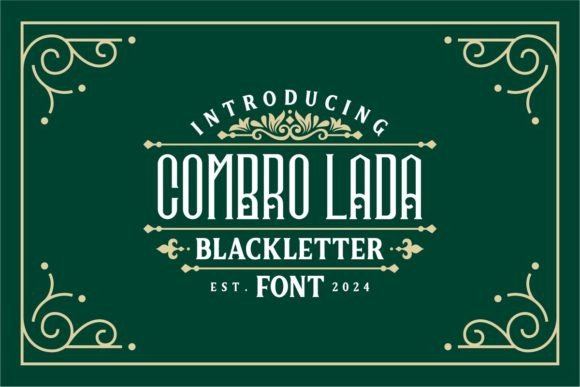
Introducing Combro Lada Font: The Bold Blackletter Typeface for Medieval-Inspired Designs
Are you looking for a font that can add a touch of old-world flair to your designs? Look no further than Combro Lada Font, a bold blackletter typeface that is sure to make a statement. With its strong, sharp lines and medieval vibe, Combro Lada is the perfect choice for designers who want to add a sense of history and sophistication to their work.
What is Combro Lada Font?
Combro Lada Font is a bold blackletter font that is inspired by the traditional typefaces of the Middle Ages. Its strong, sharp lines and dramatic flourishes give it a distinctive look that is sure to turn heads. Whether you’re designing a logo, a poster, or a website, Combro Lada is the perfect choice for adding a touch of medieval flair to your work.
Key Features of Combro Lada Font
So what sets Combro Lada Font apart from other fonts? Here are just a few of its key features:
- Bold and dramatic lines: Combro Lada’s strong, sharp lines give it a bold and dramatic appearance that is sure to make a statement.
- Medieval vibe: The font’s medieval-inspired design gives it a unique and distinctive look that is perfect for adding a touch of old-world flair to your designs.
- Highly legible: Despite its bold and dramatic lines, Combro Lada is highly legible, making it perfect for use in a variety of design applications.
- Versatile: Combro Lada is a versatile font that can be used in a variety of design applications, from logos and posters to websites and more.
Uses for Combro Lada Font
So what can you use Combro Lada Font for? The possibilities are endless! Here are just a few ideas to get you started:
- Logos and branding: Combro Lada’s bold and dramatic lines make it perfect for use in logos and branding materials.
- Posters and flyers: The font’s medieval vibe makes it a great choice for posters and flyers that need to grab attention.
- Websites and blogs: Combro Lada can add a touch of sophistication and elegance to any website or blog.
- Packaging and labels: The font’s bold and dramatic lines make it perfect for use in packaging and labels.
Tips for Using Combro Lada Font
Here are just a few tips for using Combro Lada Font in your designs:
- Use it sparingly: Combro Lada is a bold font, so it’s best to use it sparingly to avoid overwhelming your design.
- Pair it with a serif font: Combro Lada pairs well with serif fonts, which can help to add contrast and visual interest to your design.
- Experiment with different colors: Combro Lada looks great in a variety of colors, so don’t be afraid to experiment and find the perfect hue for your design.
In conclusion, Combro Lada Font is a bold and dramatic blackletter font that is perfect for adding a touch of medieval flair to your designs. With its strong, sharp lines and highly legible design, Combro Lada is a versatile font that can be used in a variety of design applications. Whether you’re designing a logo, a poster, or a website, Combro Lada is sure to make a statement.
Q: What is Combro Lada Font?
A: Combro Lada Font is a bold blackletter font that is inspired by the traditional typefaces of the Middle Ages.
Q: What are the key features of Combro Lada Font?
A: The key features of Combro Lada Font include its bold and dramatic lines, medieval vibe, high legibility, and versatility.
Q: What can I use Combro Lada Font for?
A: You can use Combro Lada Font for a variety of design applications, including logos and branding, posters and flyers, websites and blogs, and packaging and labels.